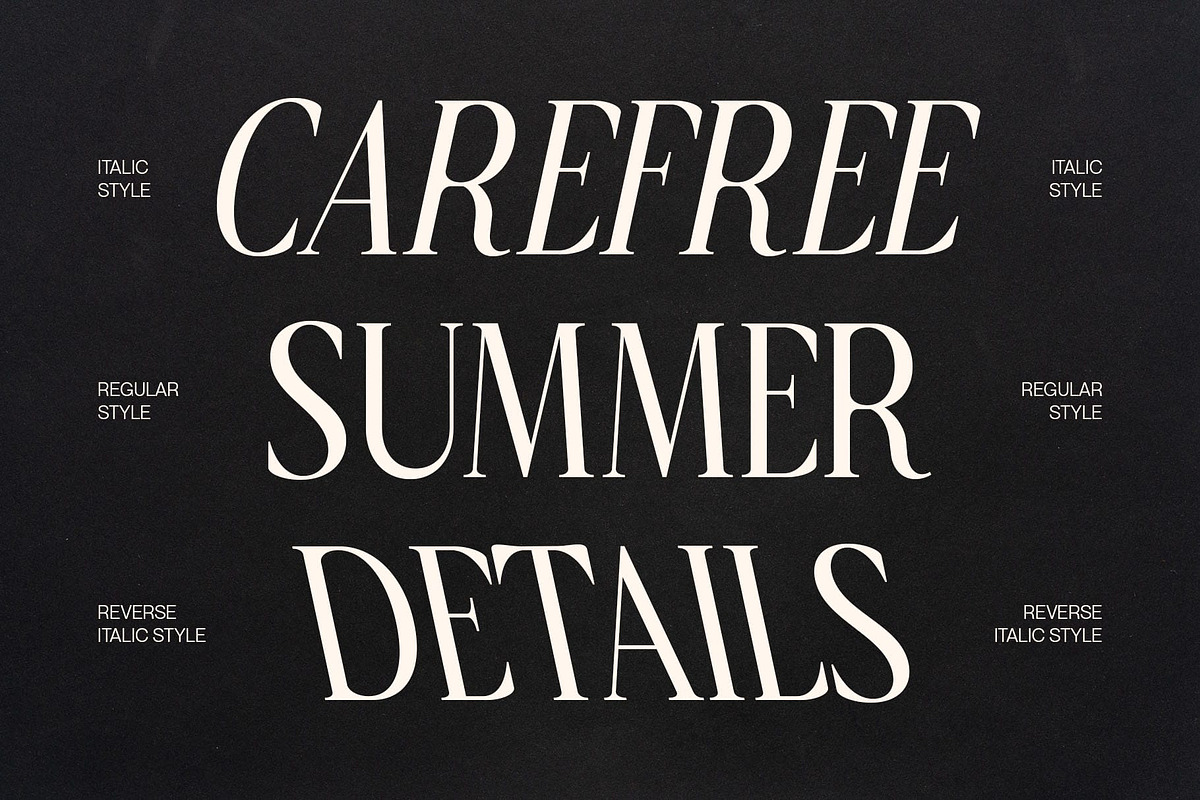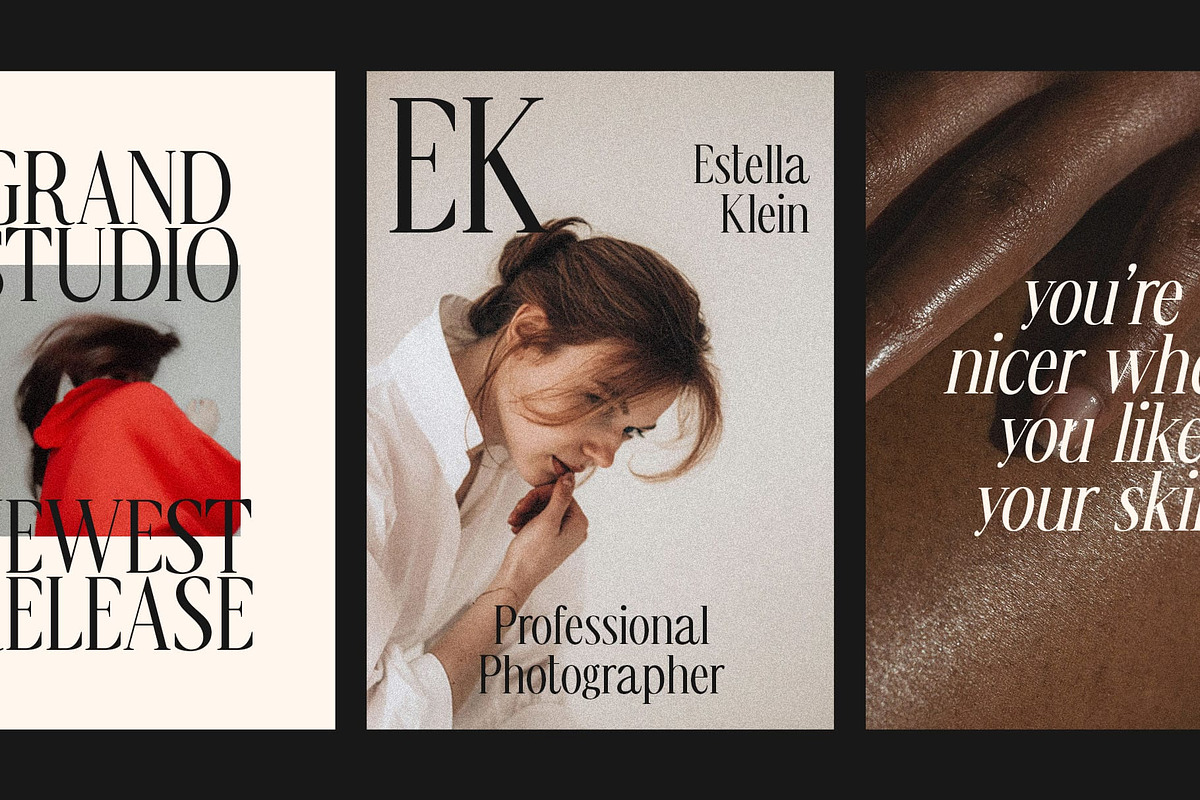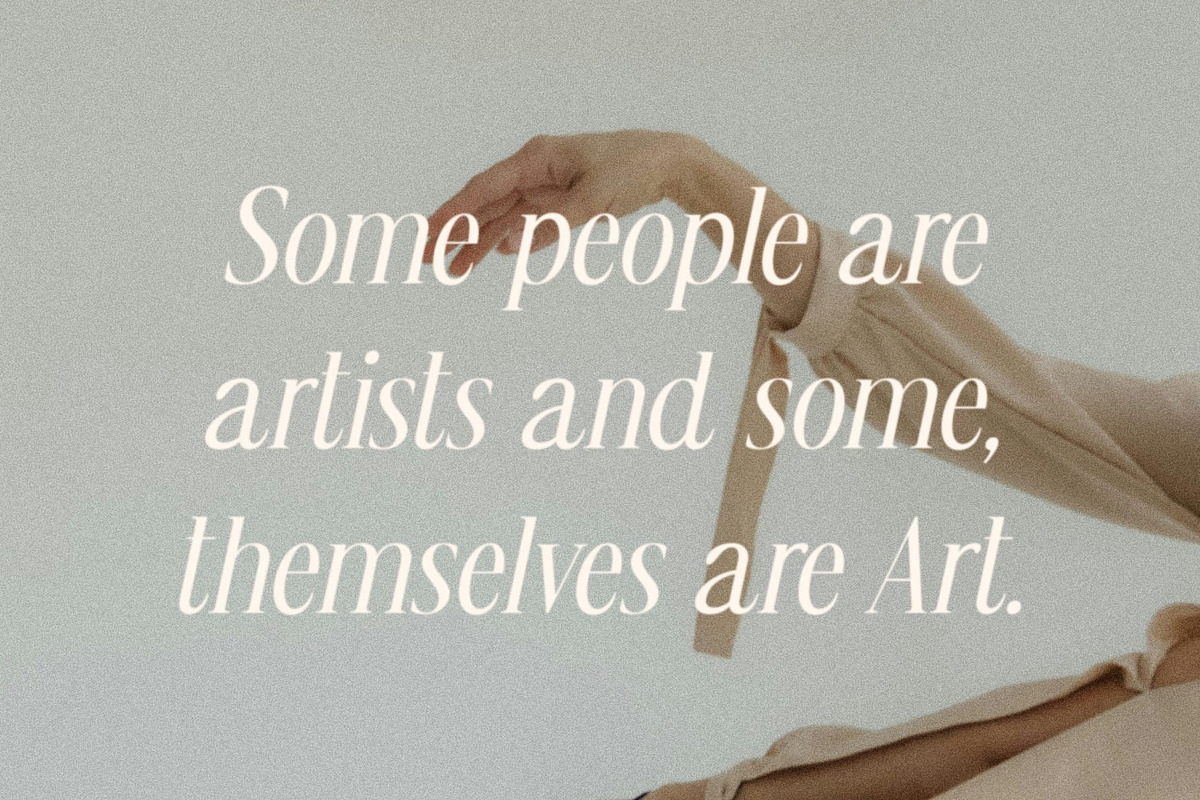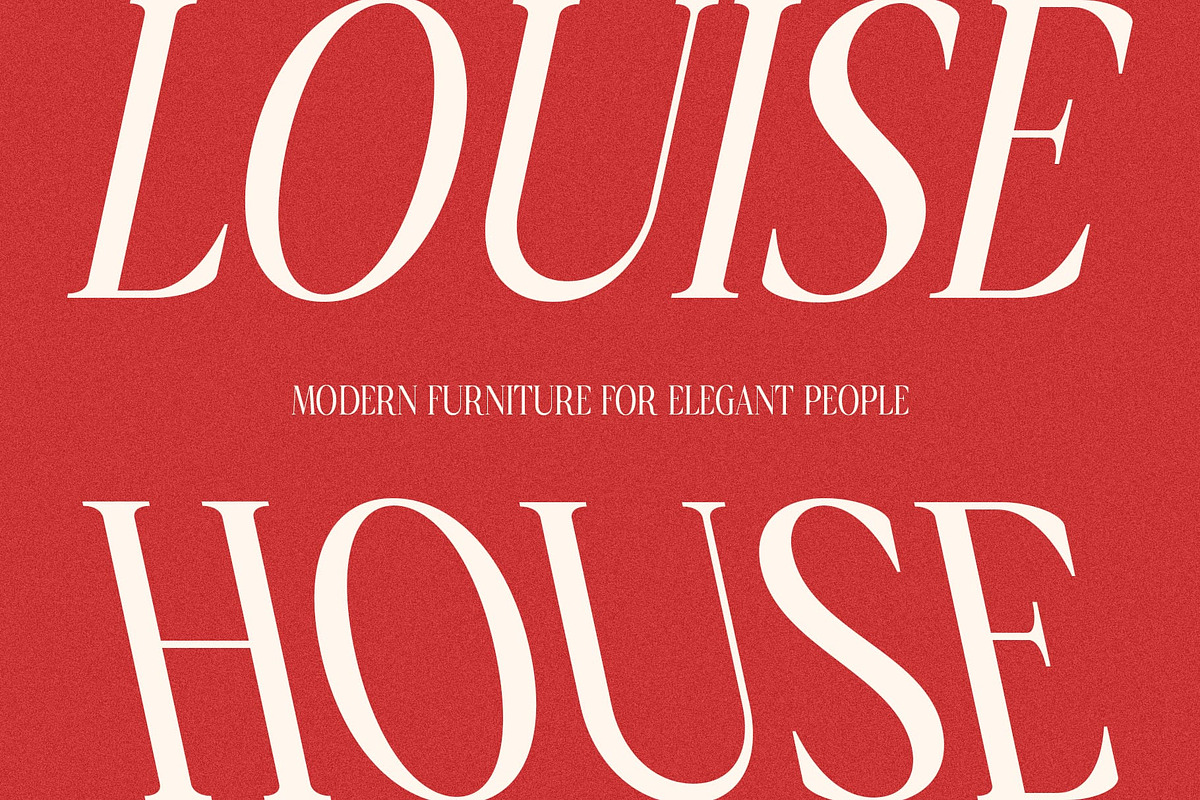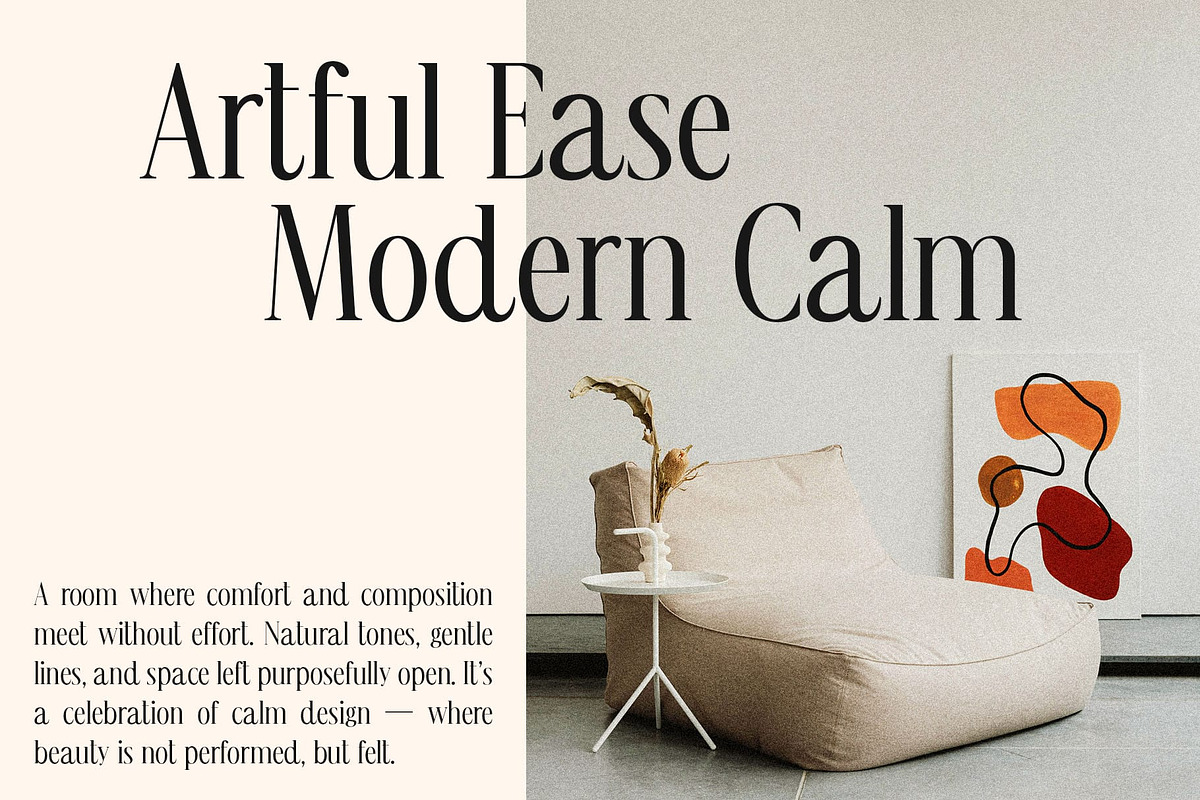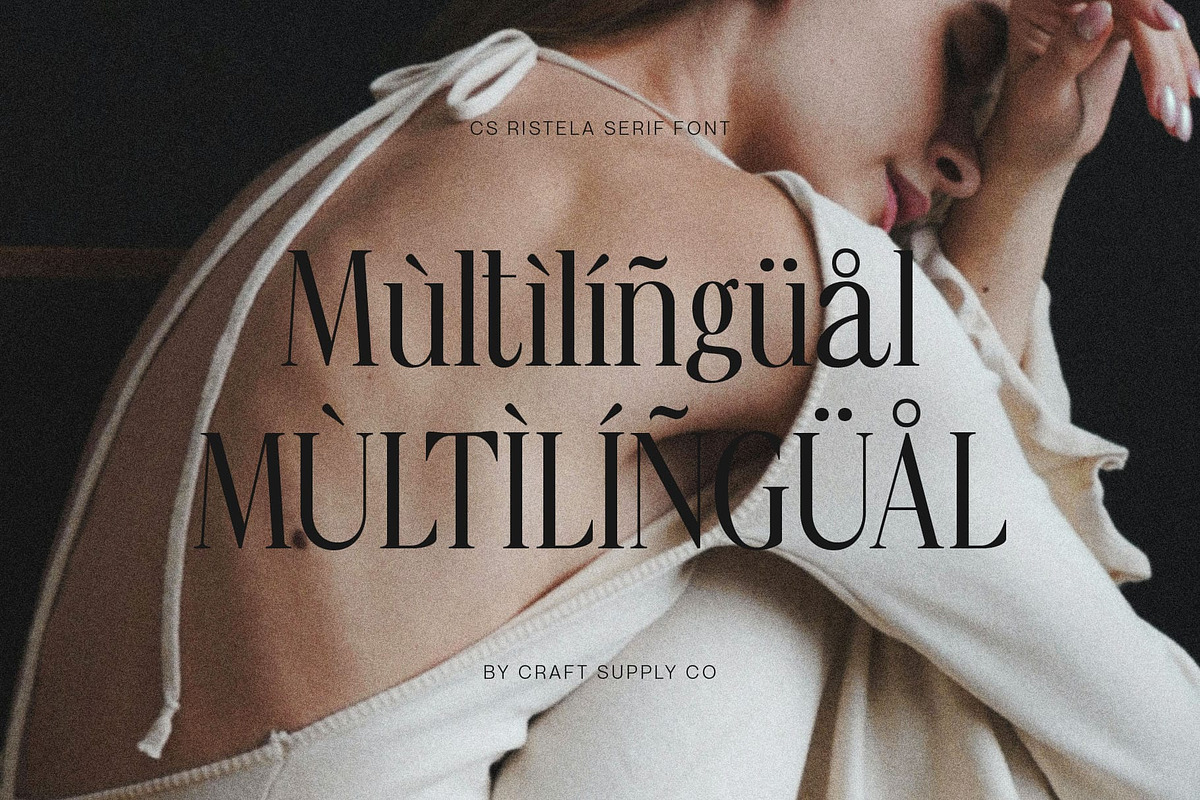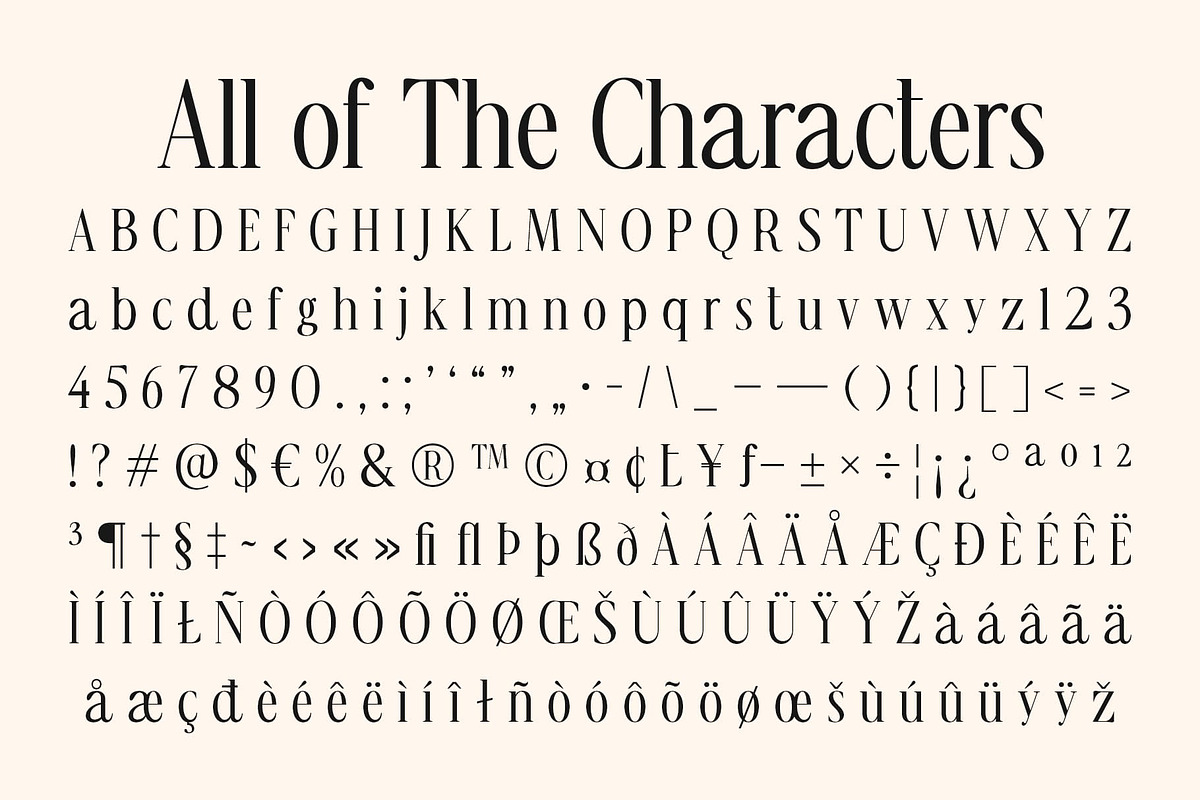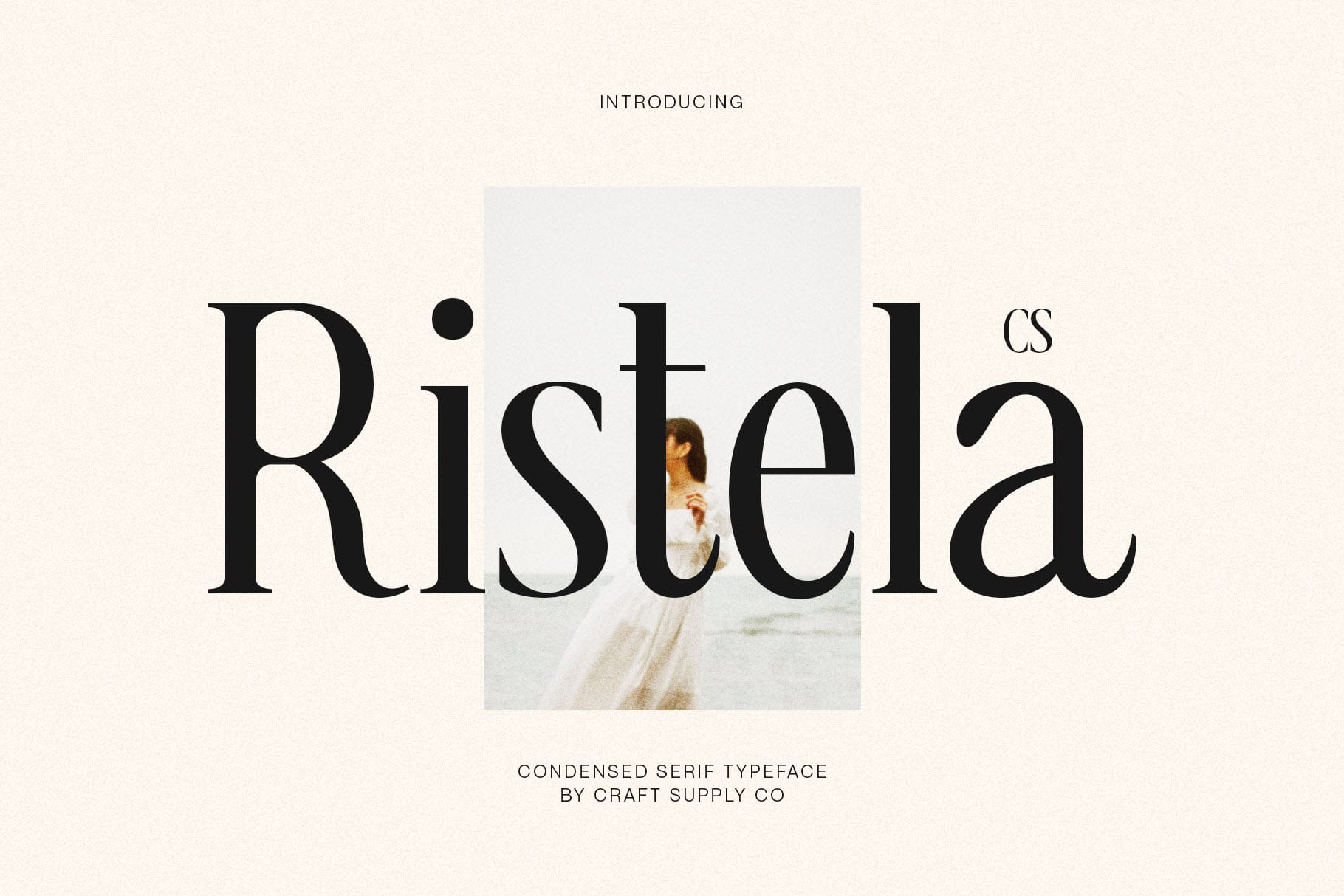
CS Ristela – Elegant Serif Typeface
CS Ristela – Timeless Elegance with Refined Proportions
Elegant Serif with Classic Inspiration This is an elegant serif font characterized by its refined curves and slightly condensed form, creating a graceful and sophisticated appearance. Inspired by Renaissance-era letterforms, it combines classical balance with modern precision, resulting in a typeface that feels both timeless and contemporary.
Graceful Form for Refined Expression Its slender proportions and smooth curves evoke a sense of refinement and intelligence, making it ideal for projects that value subtle beauty and structure. Every letter is crafted to deliver clarity and elegance, ensuring a polished aesthetic across print and digital mediums.
Ideal for Editorial and Branding Design Perfectly suited for advanced book layouts, editorial design, packaging, and branding, this font lends a luxurious tone to any project. Its classic structure ensures readability while adding a distinct visual sophistication that enhances the overall design narrative.
Harmony of Tradition and Modernity This font embodies the harmony between historical inspiration and modern design sensibility. Its elegant rhythm and refined detail make it a versatile choice for designers seeking to convey timeless beauty, high-end professionalism, and enduring style.
- CS Ristela Regular
- CS Ristela Italic
- CS Ristela Reverse Italic